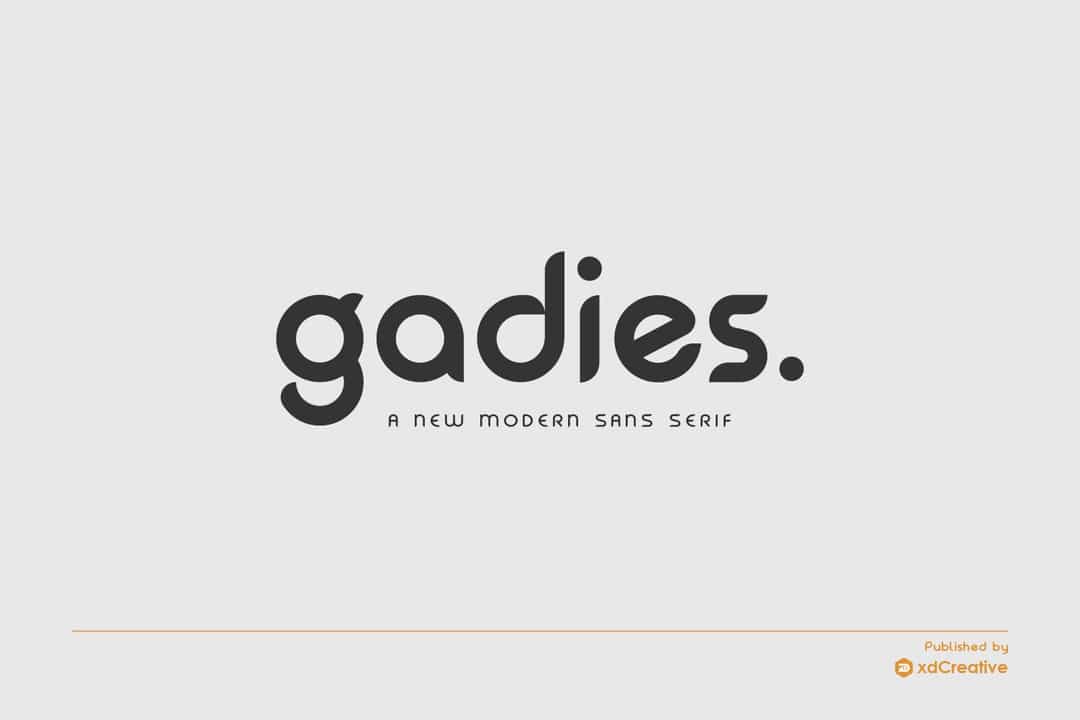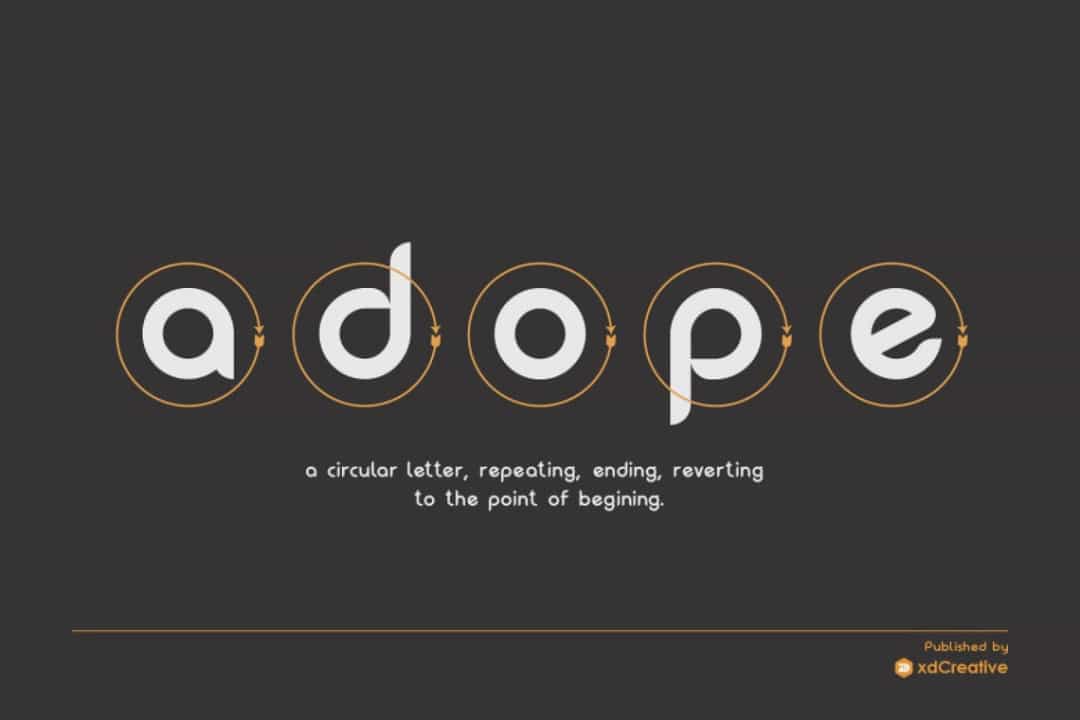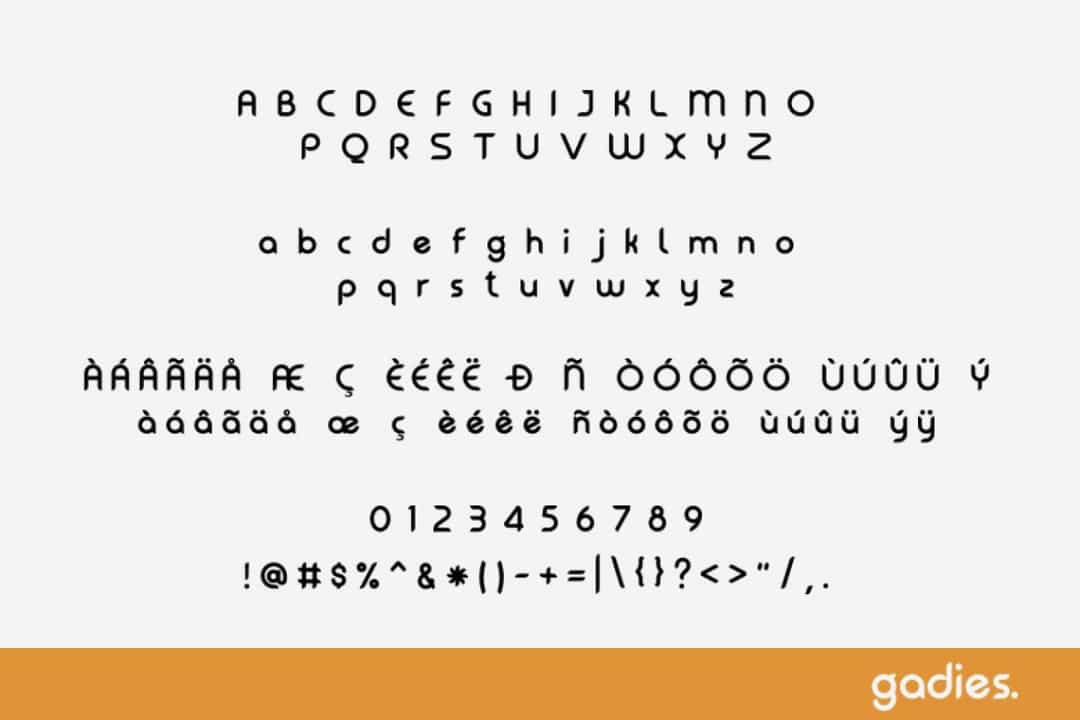
Gadies is a modern sans serif font with a stylish and unique appearance, ideal for formal and informal settings alike. Perfect for branding purposes or designs requiring an elegant aesthetic.